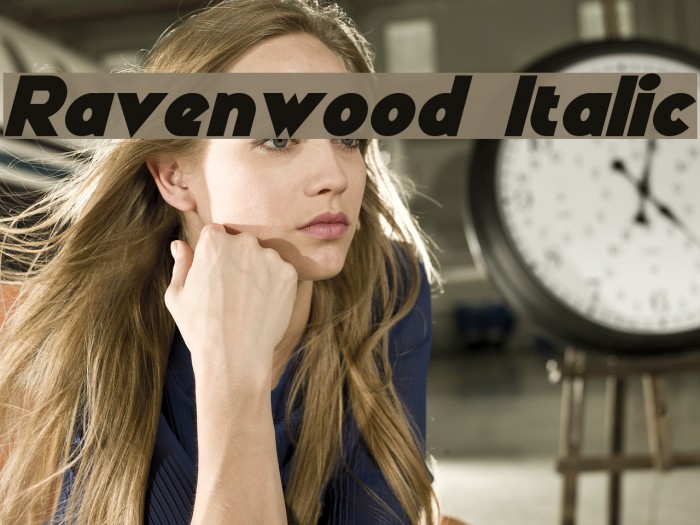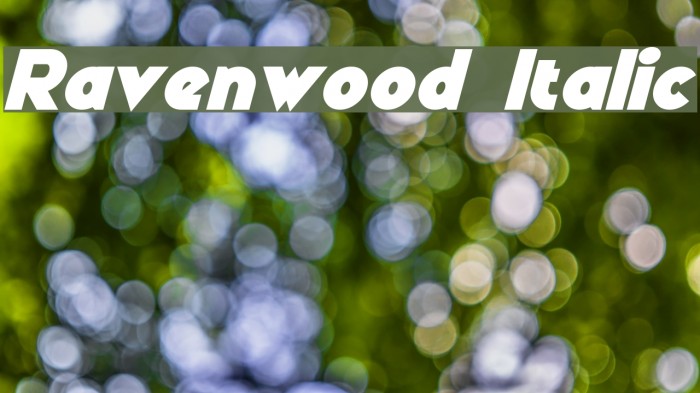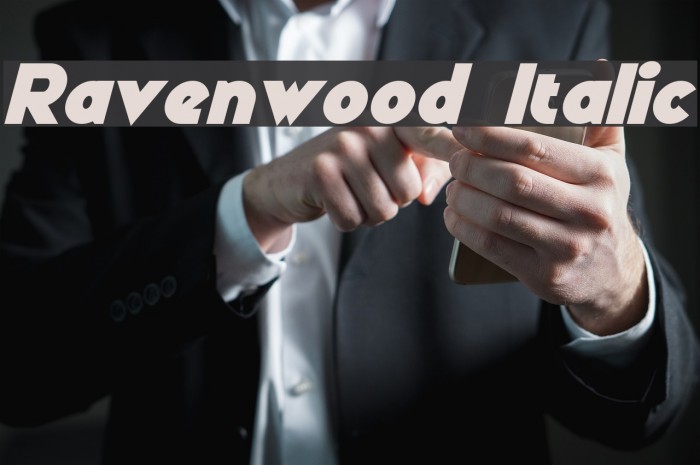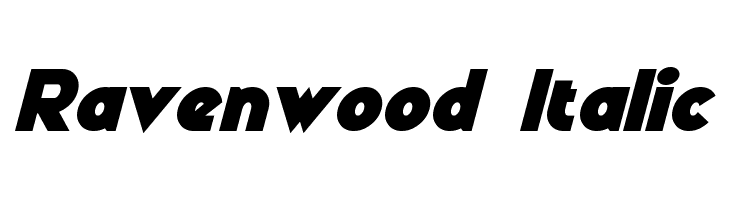
Ravenwood Italic Font
This font features a bold and dynamic italic style with a strong presence. The characters are slanted, giving a sense of movement and energy. The strokes are thick and consistent, providing a robust appearance. The uppercase and lowercase letters maintain a cohesive look, with rounded edges that soften the overall impact. Numbers and special characters follow the same bold and italicized design, ensuring uniformity across all elements. The font's style is both modern and slightly retro, making it versatile for various design needs.
A bold, italic font with a dynamic and modern style.
- Proposed Projects: Ideal for branding, headlines, posters, and any project requiring a strong, energetic typeface.